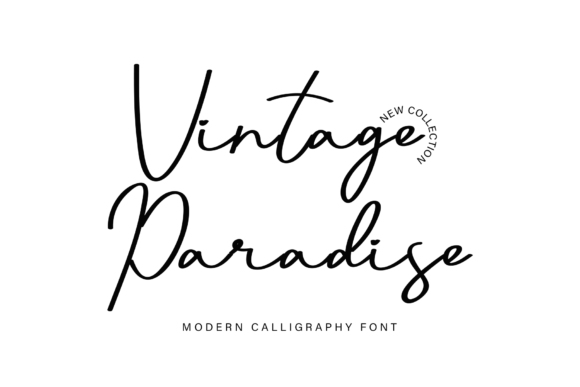
Step into a realm of elegance and charm with the Vintage Paradise Font, a script font family that exudes timeless beauty and heartfelt warmth. Specially designed to elevate your wedding program to a masterpiece, this font will transform your invitations, cards, and other designs into cherished keepsakes.
Indulge in the delicate strokes and whimsical curves of Vintage Paradise, a font that evokes nostalgia and romance. Its charming imperfections add a touch of authenticity and personality to your creations, making them stand out from the ordinary. Let your words dance upon the page with this font's graceful flow, captivating your audience with its undeniable allure.
Picture your wedding program adorned with the exquisite Vintage Paradise Font. Its elegant lines and playful flourishes will create an atmosphere of enchantment, setting the tone for a day filled with love and joy. Your guests will be captivated by the intricate details and heartfelt charm embedded within each letter, making your program a cherished keepsake long after the celebration has ended.
Beyond wedding programs, Vintage Paradise Font will add a touch of timeless sophistication to any design project. Its versatility extends to cards, logos, posters, and social media graphics, effortlessly elevating your creations with its timeless appeal. Whether you're a professional designer or a creative enthusiast, this font will unlock a world of possibilities for your visual storytelling.
Embrace the beauty of Vintage Paradise Font and embark on a creative journey that will leave a lasting impression. Its timeless charm and universal appeal make it the perfect choice for those seeking a font that effortlessly conveys elegance, warmth, and enduring beauty.